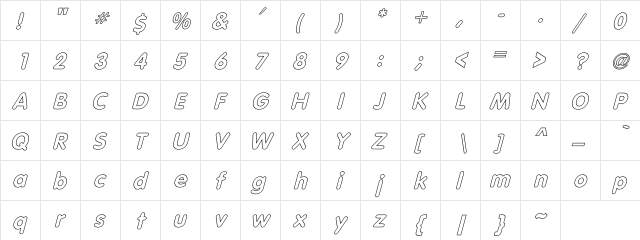
Tubular Hollow Italic Italic
Design Context for Tubular Hollow Italic Typeface
Tubular Hollow Italic is a composed and adaptable typeface that performs quietly and consistently across a wide range of design contexts. The dynamic lean of this cut emphasises speed and emphasis in any layout.
Pro Tip: Use Tubular Hollow Italic for emphasis, pull quotes, and subheadings where its slanted energy can add rhythm to the layout.